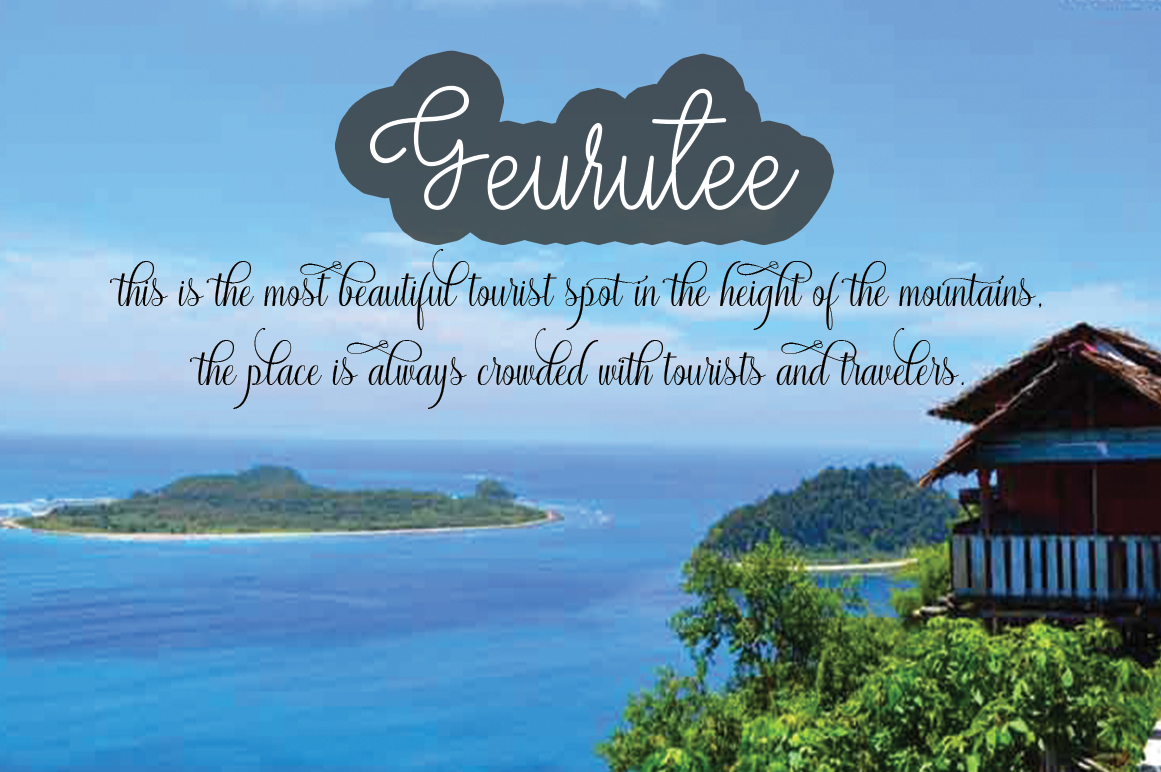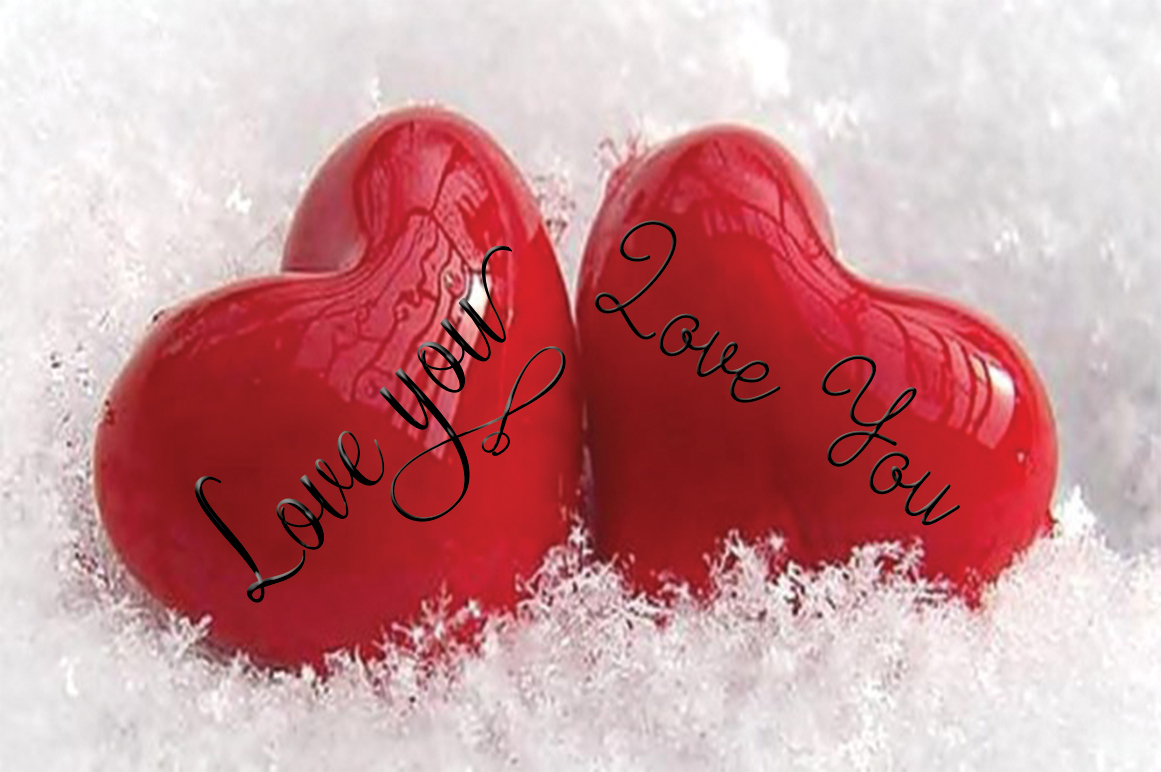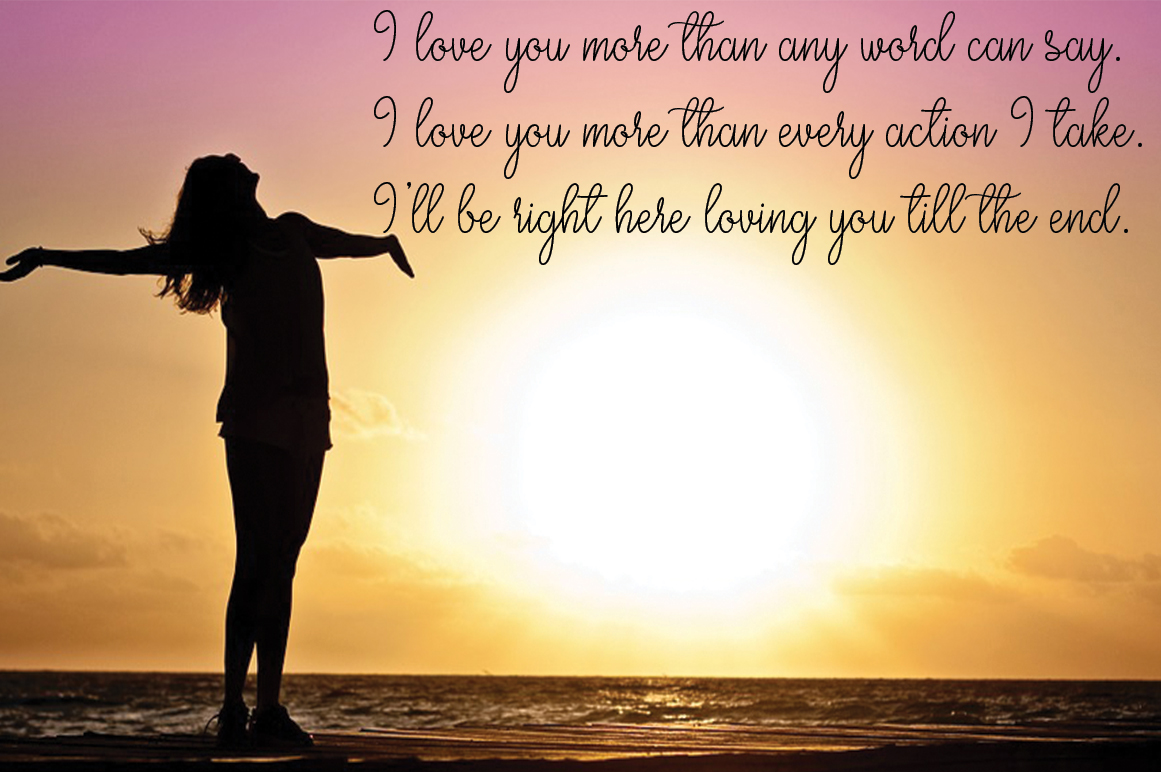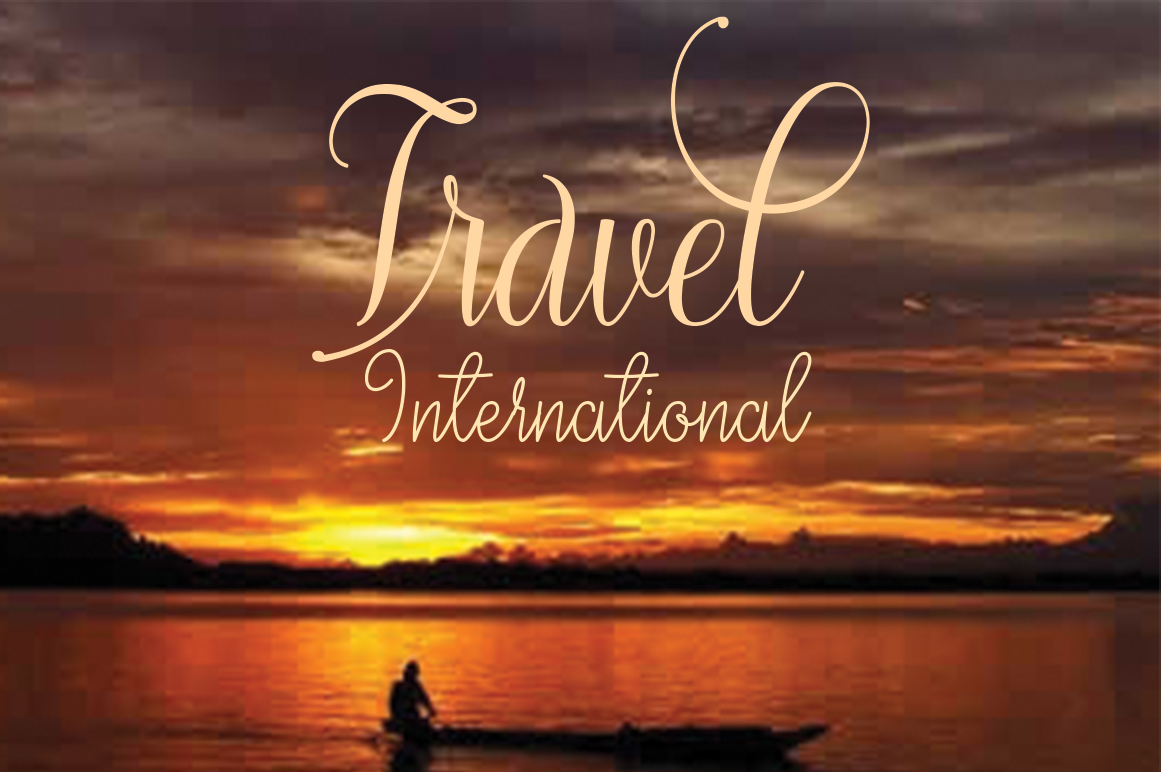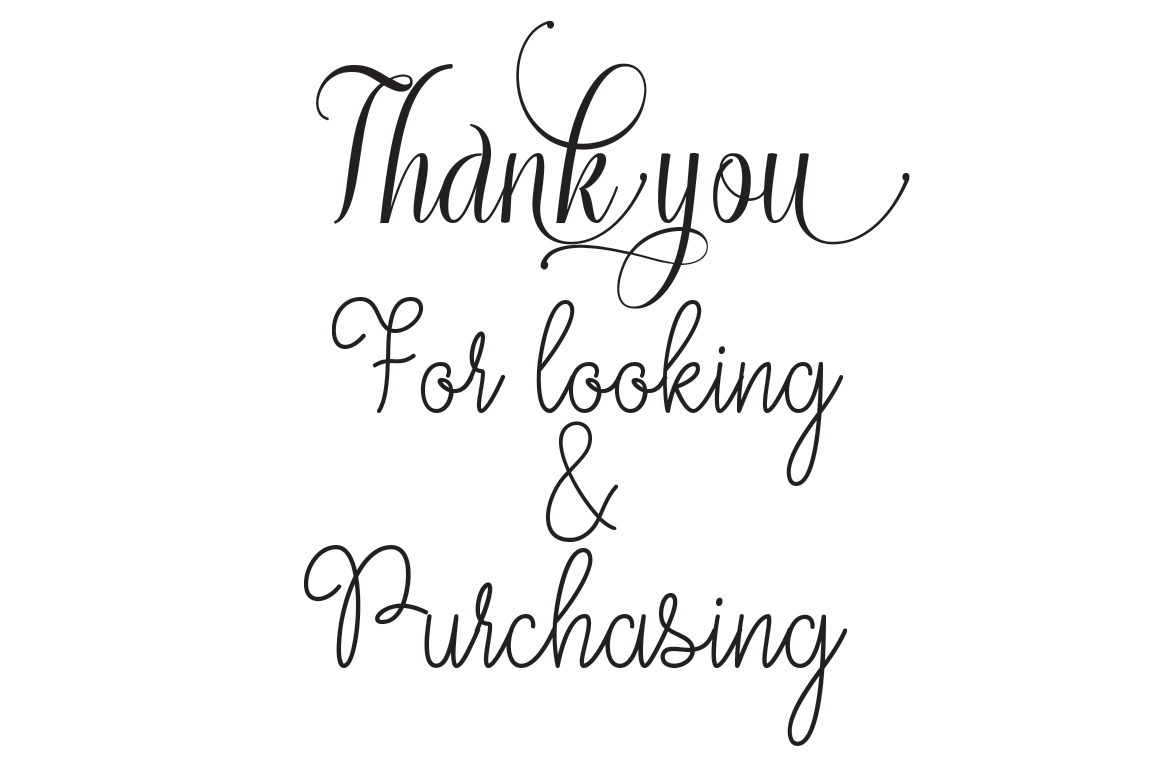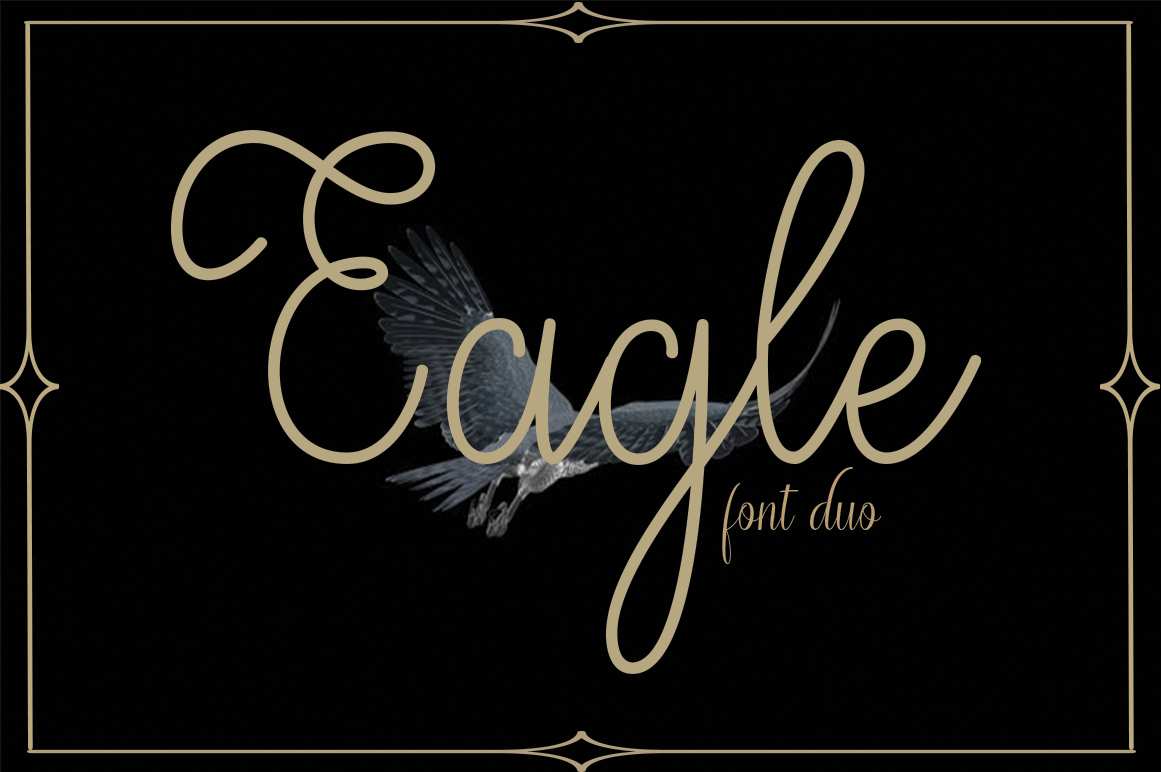
Eagle Font: Elevate Your Designs with Elegant Calligraphy
Eagle is a stunning calligraphy script font that has been making waves in the design community. With its elegant and versatile nature, it’s perfect for adding a touch of sophistication to your invitationals, branding, and other type-based projects. In this article, we’ll dive into the world of Eagle Font, exploring its features, benefits, and uses, as well as provide tips and inspiration for designers and crafters.
The Beauty of Eagle Font
Eagle Font is a beautiful example of calligraphy script fonts. Its fluid strokes, intricate connections, and elegant letterforms make it a joy to behold. The font’s design is characterized by its:
- Flowing script style: Eagle Font features a classic script style with flowing connections between letters, creating a sense of movement and fluidity.
- Intricate details: The font’s intricate details, such as the subtle variations in line width and the ornate letter terminals, add to its elegance and sophistication.
- Versatile typography: Eagle Font is designed to be versatile, making it suitable for a wide range of applications, from formal invitations to branding and advertising.
Why Choose Eagle Font?
So, why should you choose Eagle Font for your next project? Here are just a few compelling reasons:
- Adds a touch of elegance: Eagle Font’s sophisticated design adds a touch of elegance to any project, making it perfect for formal events, weddings, and high-end branding.
- Versatile and adaptable: The font’s versatility makes it suitable for a wide range of applications, from digital designs to print materials.
- Easy to read: Despite its intricate details, Eagle Font is surprisingly easy to read, making it perfect for body text and headlines.
Using Eagle Font in Your Designs
Now that we’ve covered the beauty and benefits of Eagle Font, let’s explore some practical ways to use it in your designs:
- Invitations and wedding stationery: Eagle Font is perfect for formal invitations, wedding stationery, and other event-related designs.
- Branding and logos: The font’s elegance and sophistication make it suitable for high-end branding, logos, and business cards.
- Digital designs: Eagle Font can be used in digital designs, such as social media graphics, blog headers, and website titles.
Tips for Working with Eagle Font
To get the most out of Eagle Font, here are some tips to keep in mind:
- Use it sparingly: Eagle Font’s elegance and sophistication can be overwhelming if overused. Use it sparingly to create a lasting impact.
- Experiment with colors: The font’s beauty can be enhanced with the right color scheme. Experiment with different colors to find the perfect combination.
- Pair it with contrasting fonts: Pair Eagle Font with contrasting fonts to create visual interest and add depth to your designs.
Eagle Font is a stunning calligraphy script font that can elevate your designs to new heights. With its elegance, versatility, and beauty, it’s perfect for adding a touch of sophistication to your invitationals, branding, and other type-based projects. By following the tips and inspiration outlined in this article, you’ll be well on your way to creating stunning designs that showcase the beauty of Eagle Font.